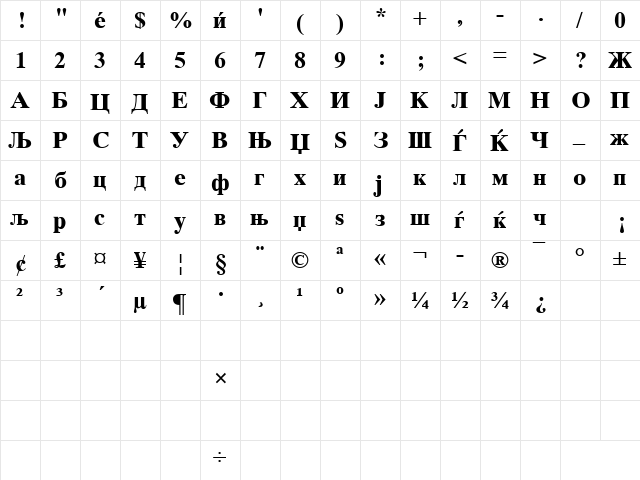
Macedonian Tms Bold
Design Context for Macedonian Tms Typeface
Macedonian Tms is a composed and adaptable typeface that performs quietly and consistently across a wide range of design contexts. The heavy weight commands attention and anchors typographic hierarchies.